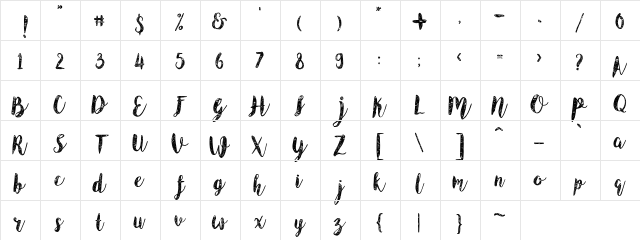
Angeline Vintage Font Preview
Angeline Vintage Angeline Vintage
Angeline Vintage Font Details
| Style | Angeline Vintage |
| Foundry | Eric Kurniawan |
| Designer | Burntilldead |
Design Context for Angeline Vintage Typeface
Angeline Vintage has the warm character of retro typography — evoking diners, record sleeves, and the golden age of print advertising.
Font Pairing: Combine Angeline Vintage with a simple slab or neutral sans — period-accurate companions reinforce the vintage feel without competing for attention.
Pro Tip: Use Angeline Vintage for headlines and pull quotes rather than body copy — its personality is best appreciated in short, focused bursts.